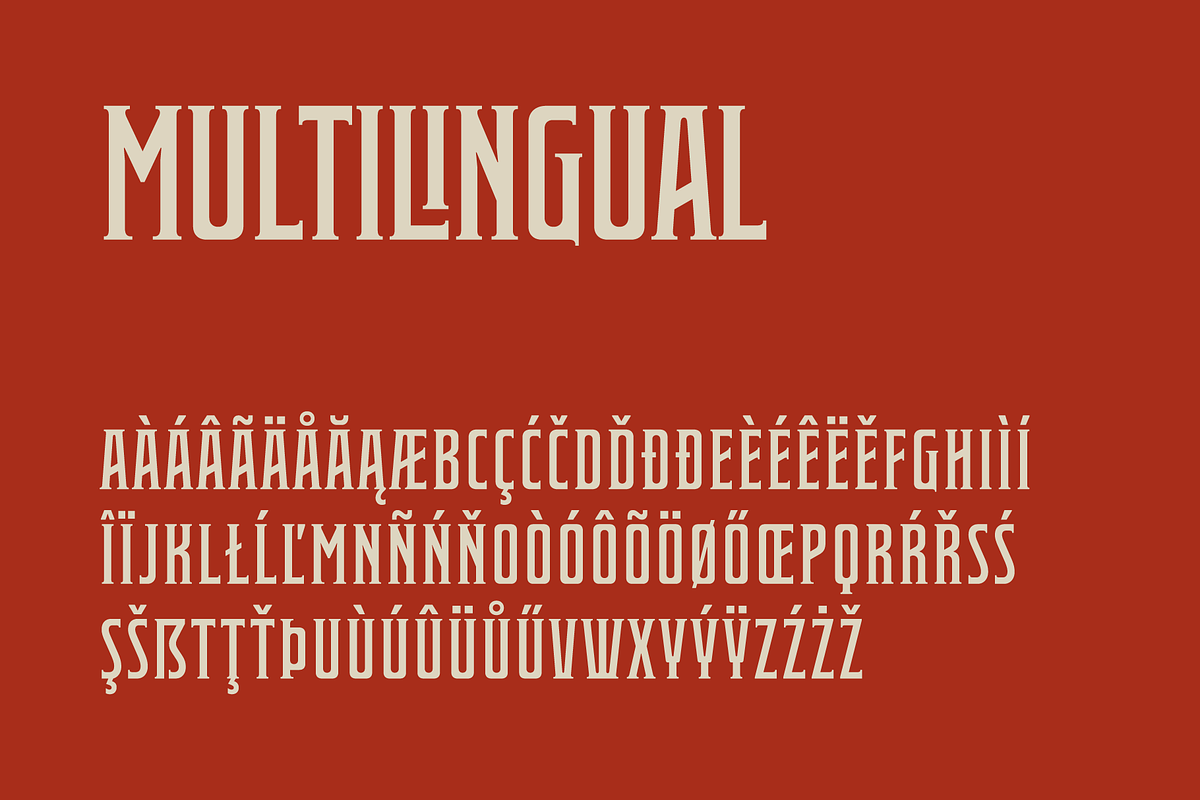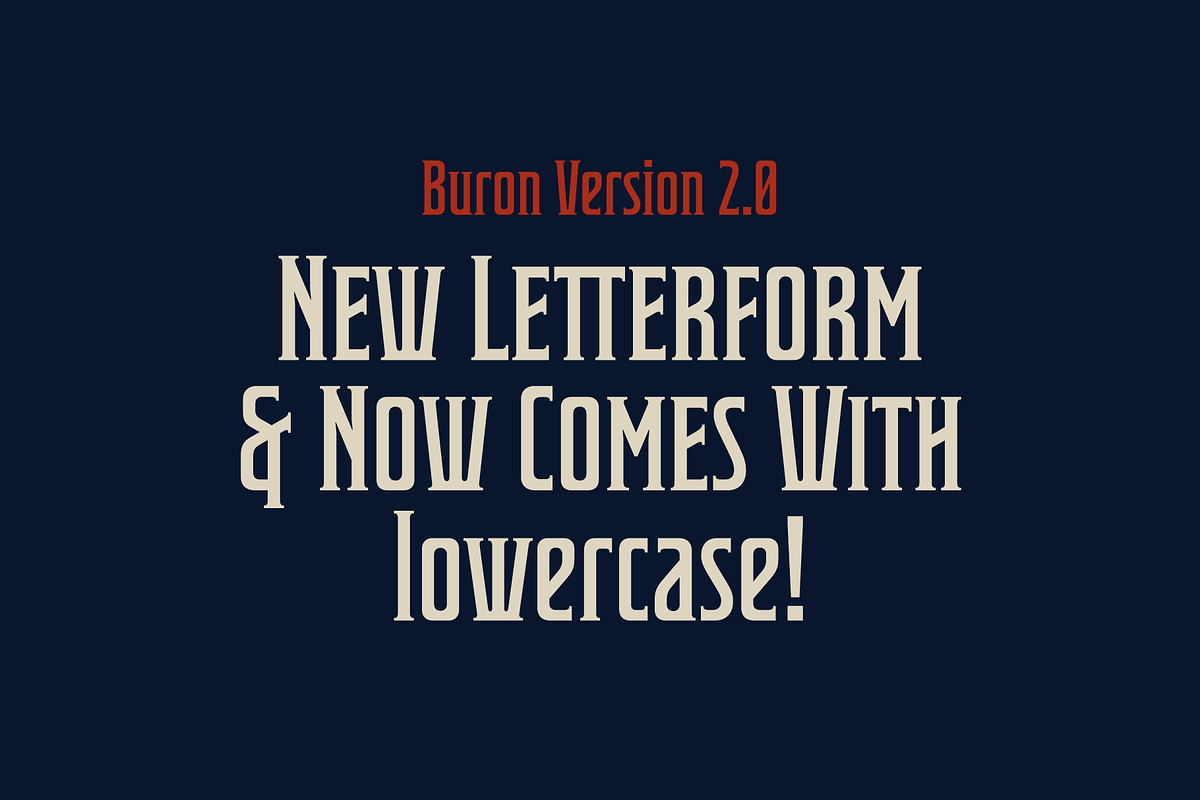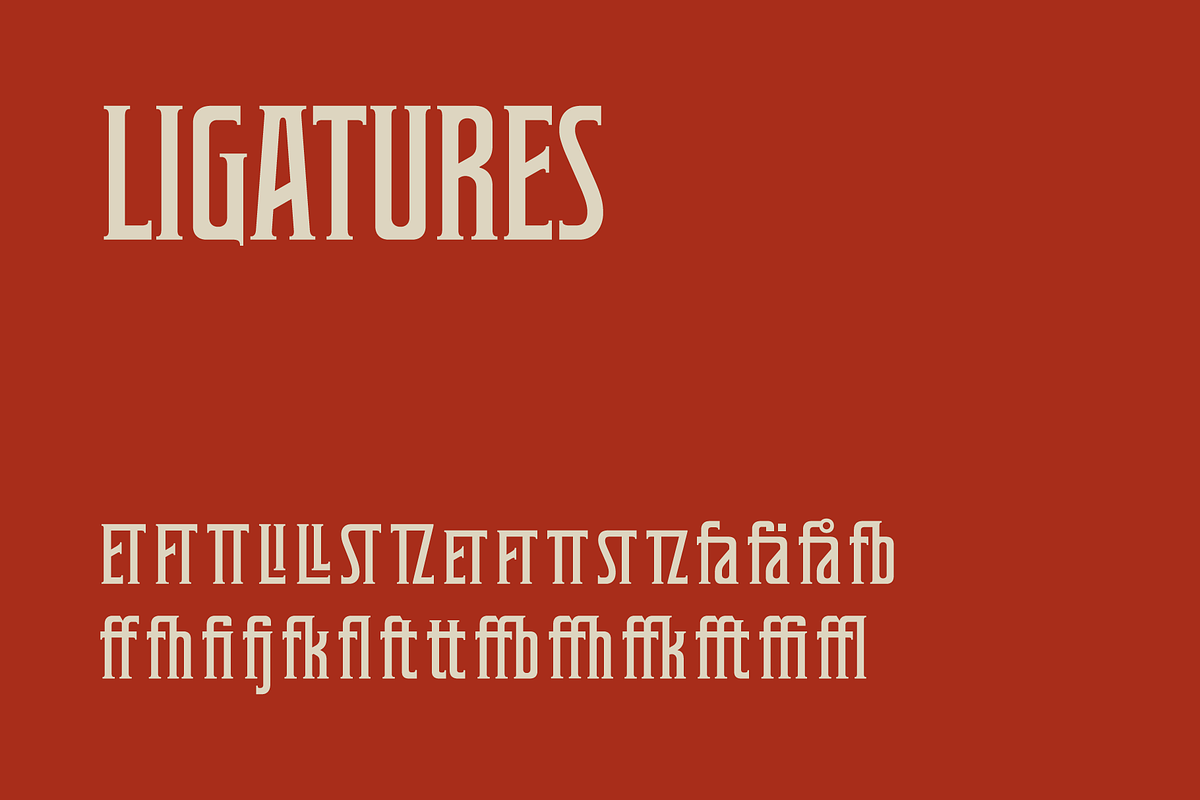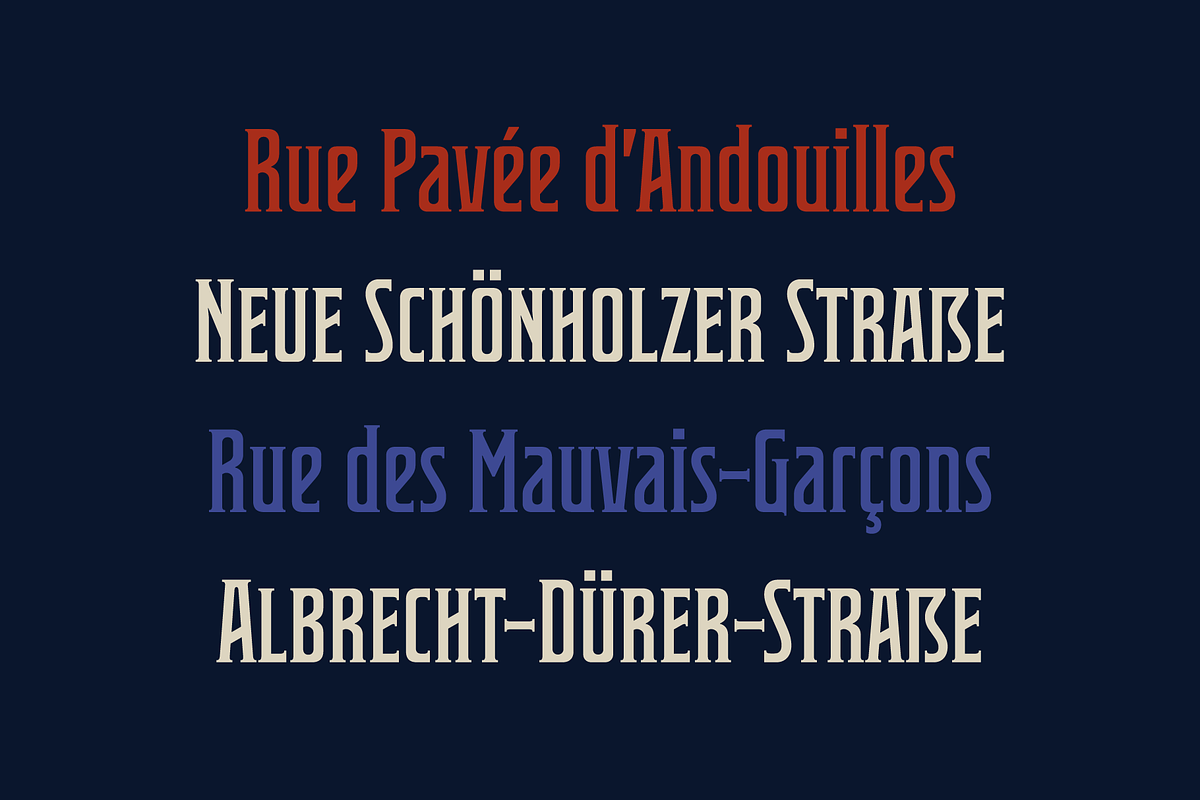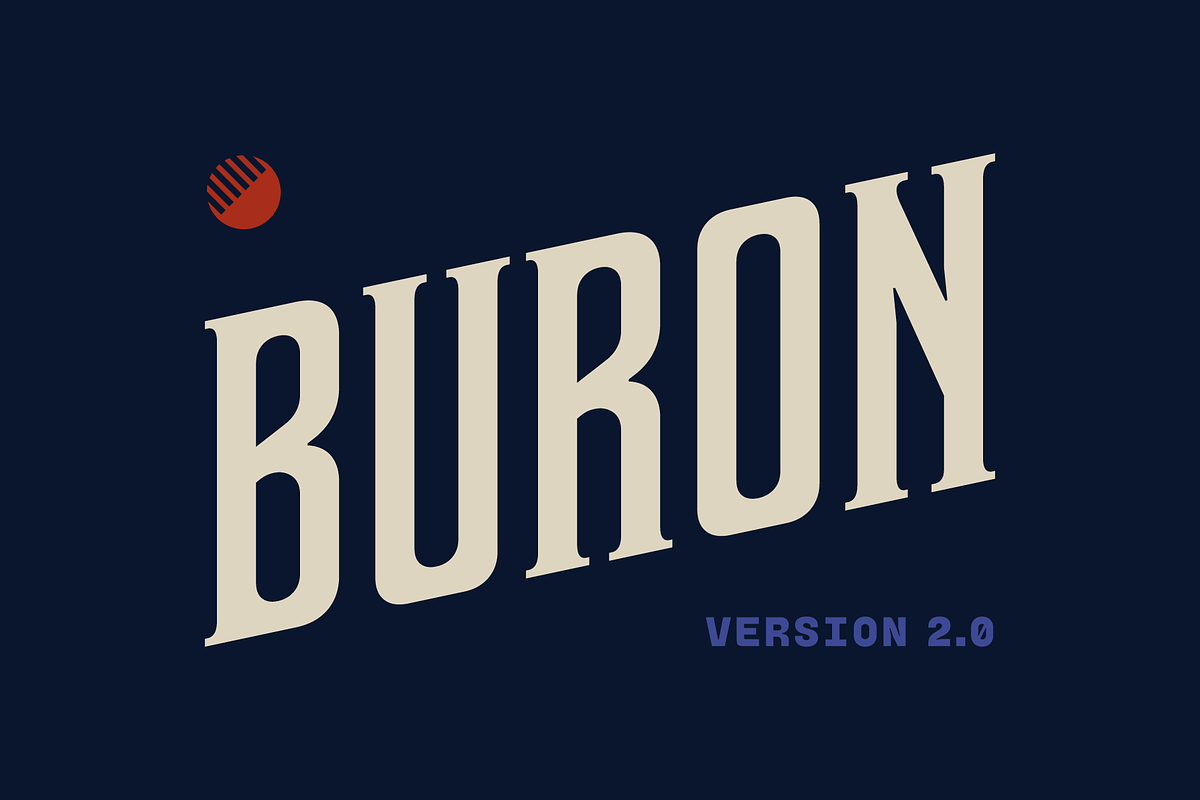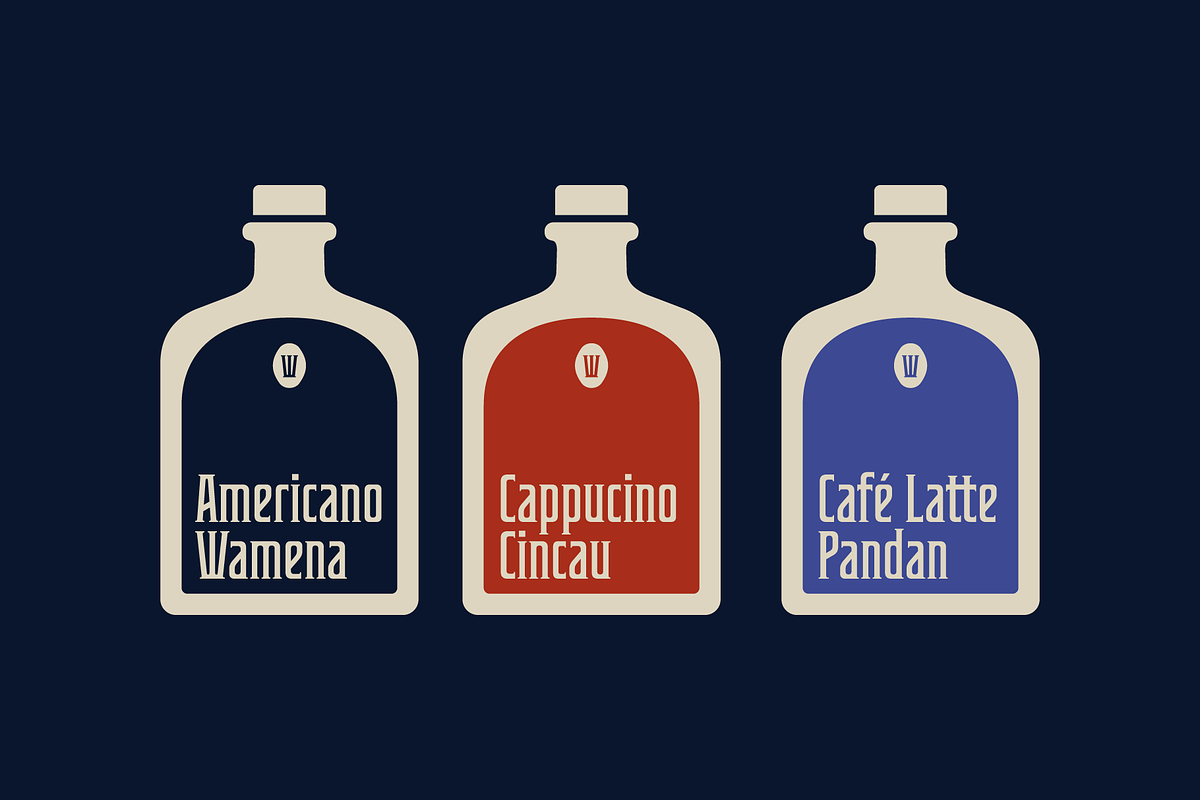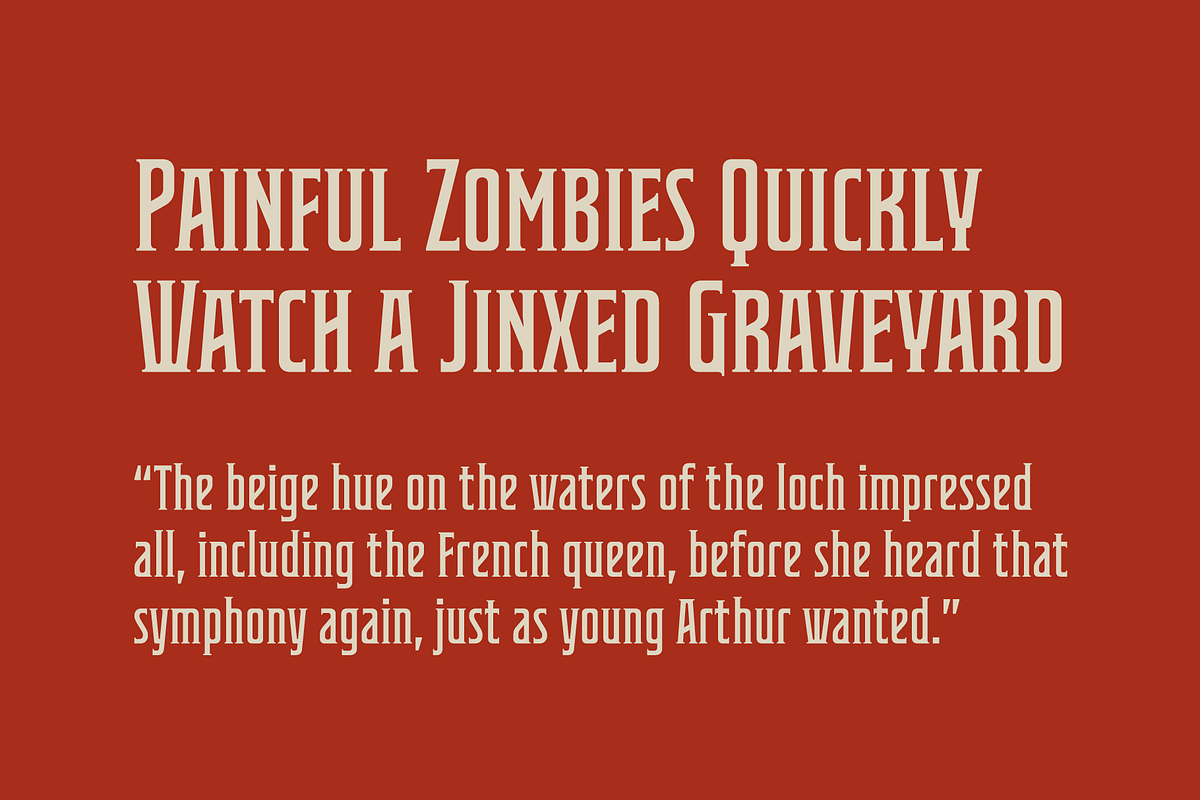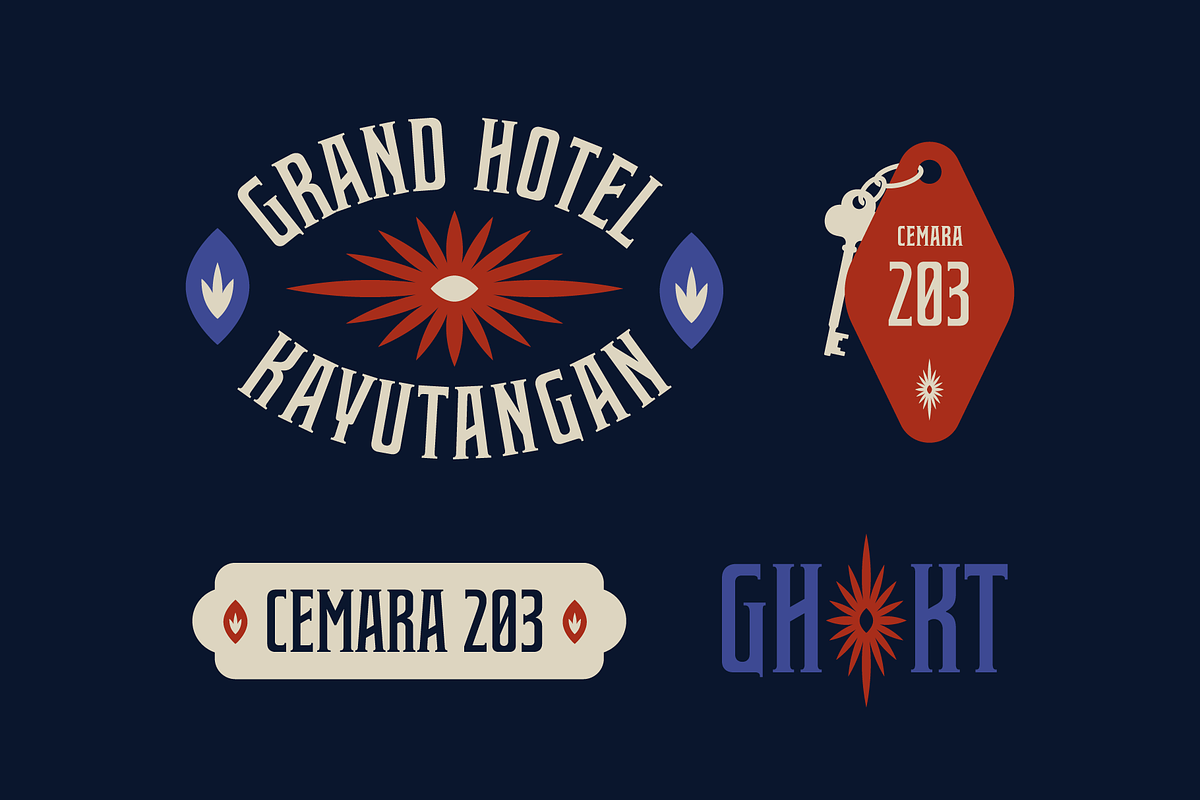
Buron Typeface
Buron Typeface by Halfmoon Type is a font selected for branding, posters, packaging, typography.
- Previously released in 2015 with limited character set, now Buron version 2.0 comes with uppercase, smallcaps, lowercase and many more featu
Buron Typeface by Halfmoon Type fits naturally into Branding, posters, packaging, typography.